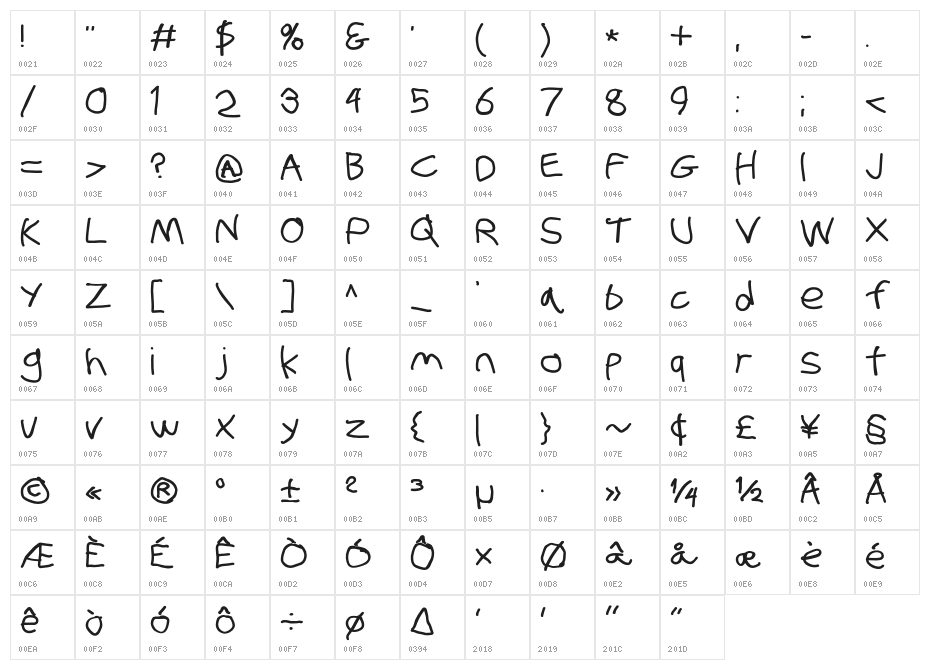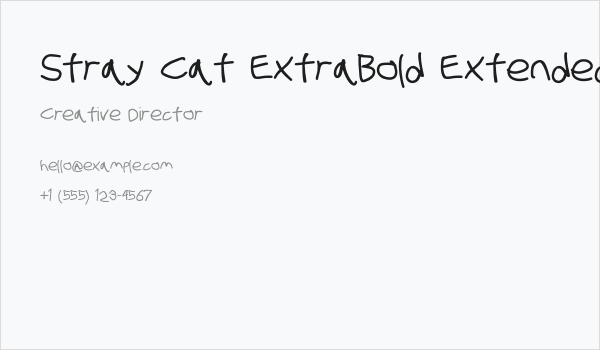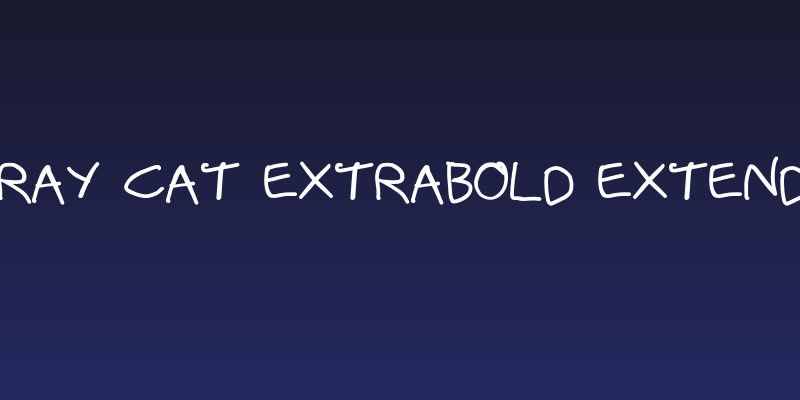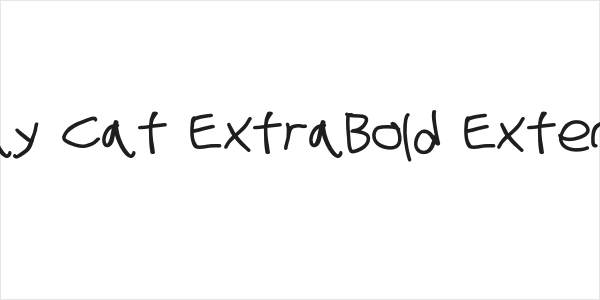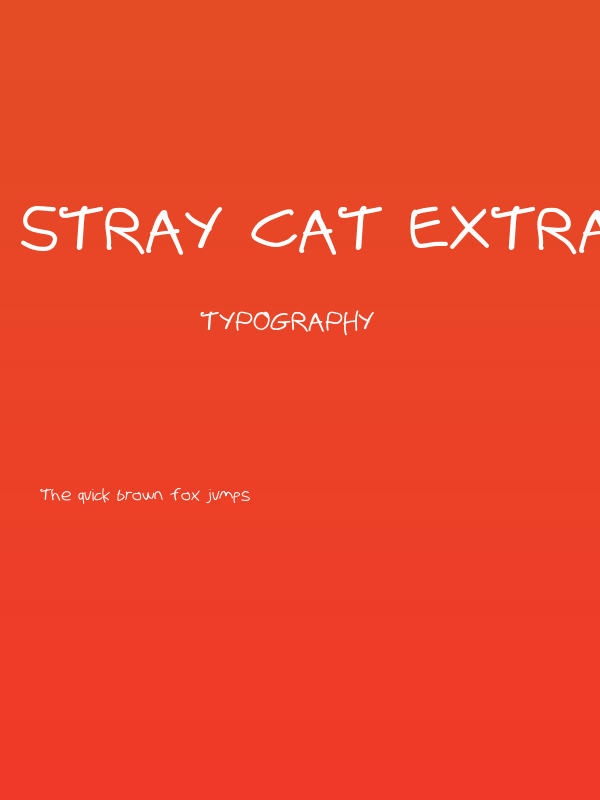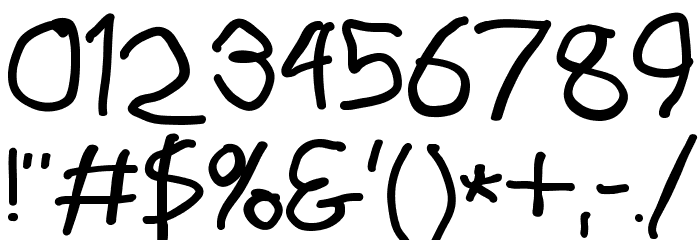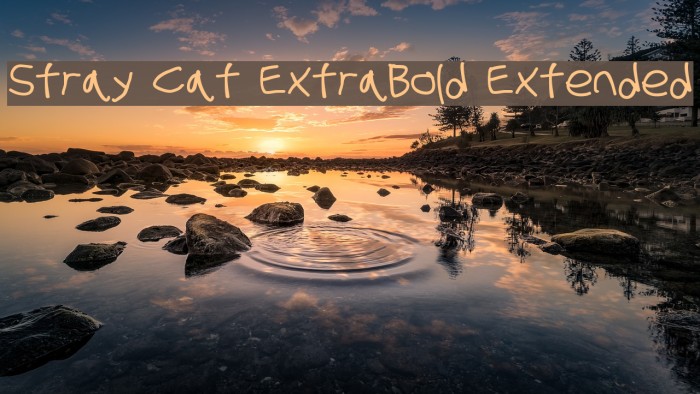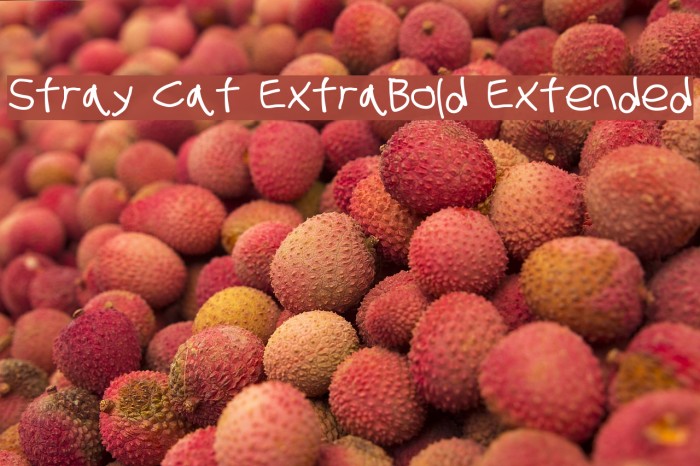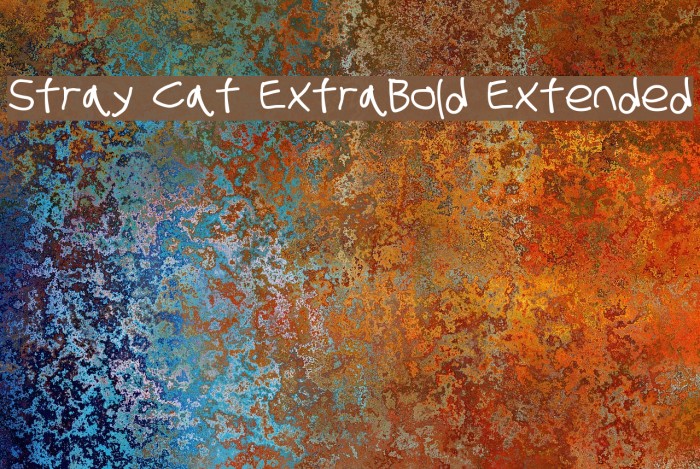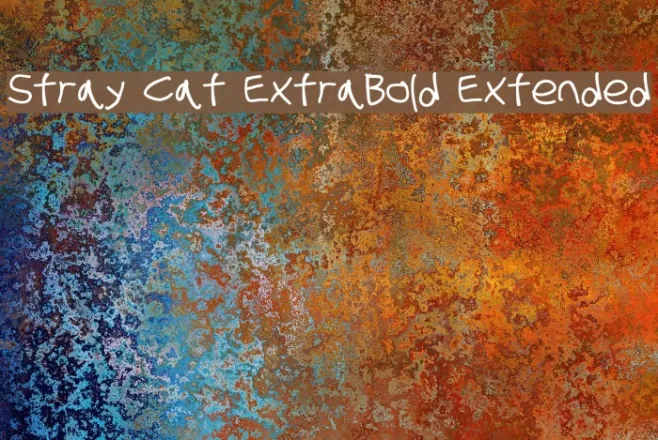
Stray Cat ExtraBold Extended Font
Stray Cat ExtraBold Extended Description
This font features a playful and casual handwritten style, characterized by its bold and extended letterforms. The strokes are thick and have a consistent width, giving it a strong presence. The characters are slightly irregular, adding to the informal and friendly appearance. The uppercase and lowercase letters maintain a cohesive look, while the numbers and special characters are designed to match the overall style. This font is ideal for projects that require a personal touch or a relaxed vibe.